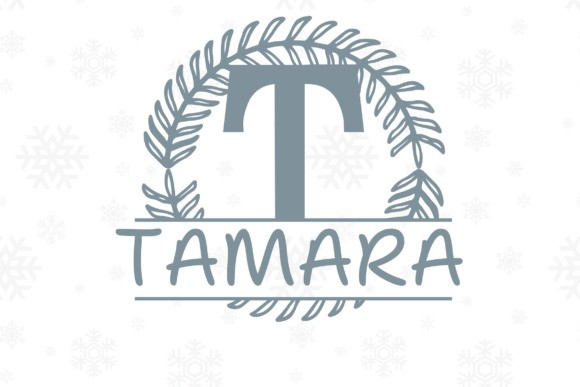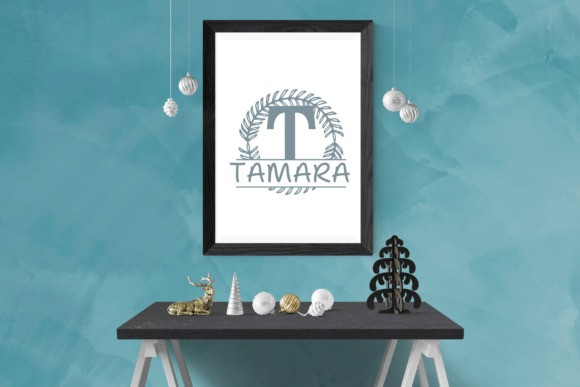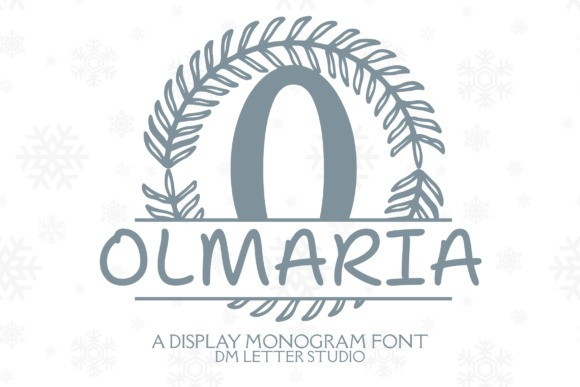
Olmaria Split Monogram Font
Olmaria Split Monogram Font is fast in Canva, Photoshop, and Illustrator. Next, the clean outlines cut and print beautifully for foil, emboss, deboss, engraving, laser, vinyl, DTF, and sublimation. Then layouts build quickly because spacing and proportions stay steady. Moreover, the split bar gives you instant personalization, so custom listings look higher value without extra design time. Therefore, your shop can ship name-ready products and premium sets with confidence.